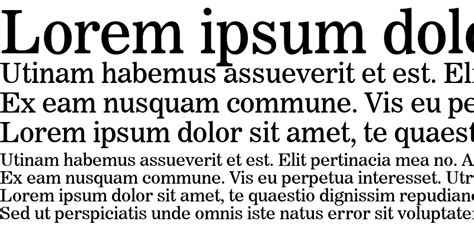
Unveiling The News706 BT Font: A Comprehensive Guide
Hey everyone! Today, we’re diving deep into the world of typography and taking a close look at the News706 BT font . If you’re a designer, a writer, or just someone who appreciates good font choices, this guide is for you. We’ll explore everything from its origins and characteristics to how you can use it effectively in your projects. So, grab your coffee, sit back, and let’s get started!
What is the News706 BT Font?
So, what exactly is the News706 BT font ? Well, it’s a member of the Bitstream font family, a group of fonts that have been around for quite some time. It’s a serif font, meaning it has those little decorative strokes at the ends of the letters – think of the classic Times New Roman, for instance. The News706 BT font is known for its versatility and readability, making it a popular choice for various applications. It’s often used in newspapers, magazines, and other print media because it’s designed to be easily read, even in smaller sizes. But don’t let that fool you; it’s also perfectly capable of holding its own in digital designs. The News706 BT font has a certain timeless quality to it, a subtle elegance that can add a touch of sophistication to any project. It’s not flashy or overly trendy, which makes it a safe bet for designs that need to withstand the test of time. Understanding its basic characteristics is key to leveraging its power effectively.
The font’s design focuses on readability and clarity , which is why it excels in body text. It’s not a font you’d typically use for huge, attention-grabbing headlines, although it can certainly work in certain contexts. Instead, it shines when used for articles, paragraphs, and other text-heavy elements where legibility is paramount. News706 BT carries a traditional feel, which can bring a sense of reliability and credibility to your work. Moreover, the font is available in different weights and styles – from regular to bold, and sometimes even italic versions – enabling you to create typographic hierarchy and emphasis within your designs. When considering using this font, think about the overall tone and purpose of your project. Does it align with the font’s understated elegance and focus on readability? If so, you might just find News706 BT to be the perfect match. Also, remember to consider the context of your design: where will the text be displayed? How large will the text be? The answers to these questions will significantly influence how the font performs.
The Historical Context and Design Principles
Let’s dig a bit deeper into the history and design principles that shape News706 BT . Like many classic fonts, it comes from a heritage rooted in the evolution of typography. Bitstream, the company behind it, has a long history of creating and distributing typefaces. The design is based on the idea of clarity and straightforwardness. The letterforms are well-defined, with consistent strokes and easily distinguishable characters. This ensures that the text remains readable, even when viewed in less-than-ideal conditions, such as on a low-resolution screen or in a dimly lit environment. A key aspect of News706 BT’s design is its balance. The weight and proportions of the characters are carefully calibrated to provide a harmonious visual experience. The font is neither too heavy nor too light, striking a good balance that avoids the common pitfalls of being either too imposing or too wispy. The serifs, though present, are not overly pronounced, preventing the font from appearing overly ornate or dated. This thoughtful design approach contributes to the font’s longevity and enduring appeal.
Another important design principle is its versatility. The font is intended to be used in various settings, from printed materials to digital displays. To make it work in both worlds, the designers had to consider factors such as screen resolution, print quality, and viewing distance. The result is a typeface that looks good in different sizes and formats. The history of News706 BT is a story of continuous refinement and adaptation. As technologies have evolved, the font has been updated to meet the changing demands of designers and readers. Its adaptability is the reason why it remains relevant today, despite the ever-changing landscape of font trends. Considering the history, design principles, and context of use gives you a better grasp of the potential applications of this typeface. Understanding what the designers intended can help you use it more thoughtfully and effectively.
Key Characteristics of the News706 BT Font
Alright, let’s get into the nitty-gritty and explore some of the key characteristics of the News706 BT font . This will help you understand its strengths and weaknesses and figure out when it’s the right choice for your project. We’ll look at things like readability, style, and different variations.
Readability and Legibility
First and foremost, News706 BT is designed for readability. That’s its primary goal. The letterforms are clear and distinct, making it easy for the eye to follow the text. The font has a relatively high x-height, which means the lowercase letters are taller than they would be in some other fonts. This helps to make them more visible, especially in smaller sizes. The spacing between letters and words is also carefully considered. There’s enough space to prevent the characters from running together, but not so much that the text looks disconnected. This thoughtful spacing contributes to overall legibility. The serifs, while present, are not overly aggressive. They’re subtle enough to guide the eye across the line of text without causing unnecessary distractions. All these features work together to create a font that is pleasant and easy to read.
Readability is crucial, and that’s the core focus of News706 BT . Whether you’re designing a book, a website, or a document, the ability to read the text effortlessly is essential. Using a font like this helps you achieve that goal. The font is particularly well-suited for body text, where extended reading is expected. For headlines, you may consider a bolder or more decorative font, but for the main content, News706 BT is a solid choice. The font’s design ensures that the text flows smoothly, making it easier for readers to absorb the information without straining their eyes. Consider the importance of readability, especially when dealing with long-form content. Selecting the right font can make the difference between an engaging experience and a frustrating one. The News706 BT font is designed to provide that easy, natural reading experience.
Style and Aesthetics
When we talk about the style of News706 BT , we’re referring to its overall visual impression. It’s a font that leans towards a traditional, classic aesthetic. This makes it a great choice for projects that need to convey a sense of reliability, authority, or timelessness. The font’s simple elegance makes it versatile for a variety of designs. It doesn’t scream for attention, but rather provides a solid foundation for the content. It’s like a well-tailored suit – it’s always in style and works in many settings. The serifs give it a touch of formality, which can be useful when you need to project professionalism. This is why it’s a great choice for corporate documents, reports, and other professional communications. However, the font is also adaptable to more casual settings. It can add a touch of sophistication to a website or a personal blog. The key is to understand the tone and purpose of your project and choose a style that aligns with it.
Furthermore, the font’s straightforward design makes it easy to incorporate into different design schemes. It pairs well with many other fonts, which allows you to create typographic hierarchy and visual interest in your designs. You can pair it with a more decorative font for headlines, and use News706 BT for the body text. This combination will add contrast and visual appeal. The font’s neutral aesthetic means it doesn’t clash with other design elements, making it simple to integrate into an existing design system. The versatility of the font is one of its greatest assets. Its style allows you to create a cohesive and harmonious design, no matter the context. Whether you’re aiming for a classic look or a more contemporary feel, News706 BT can adapt and fit the bill. The flexibility of its style makes it a valuable asset for any designer or writer.